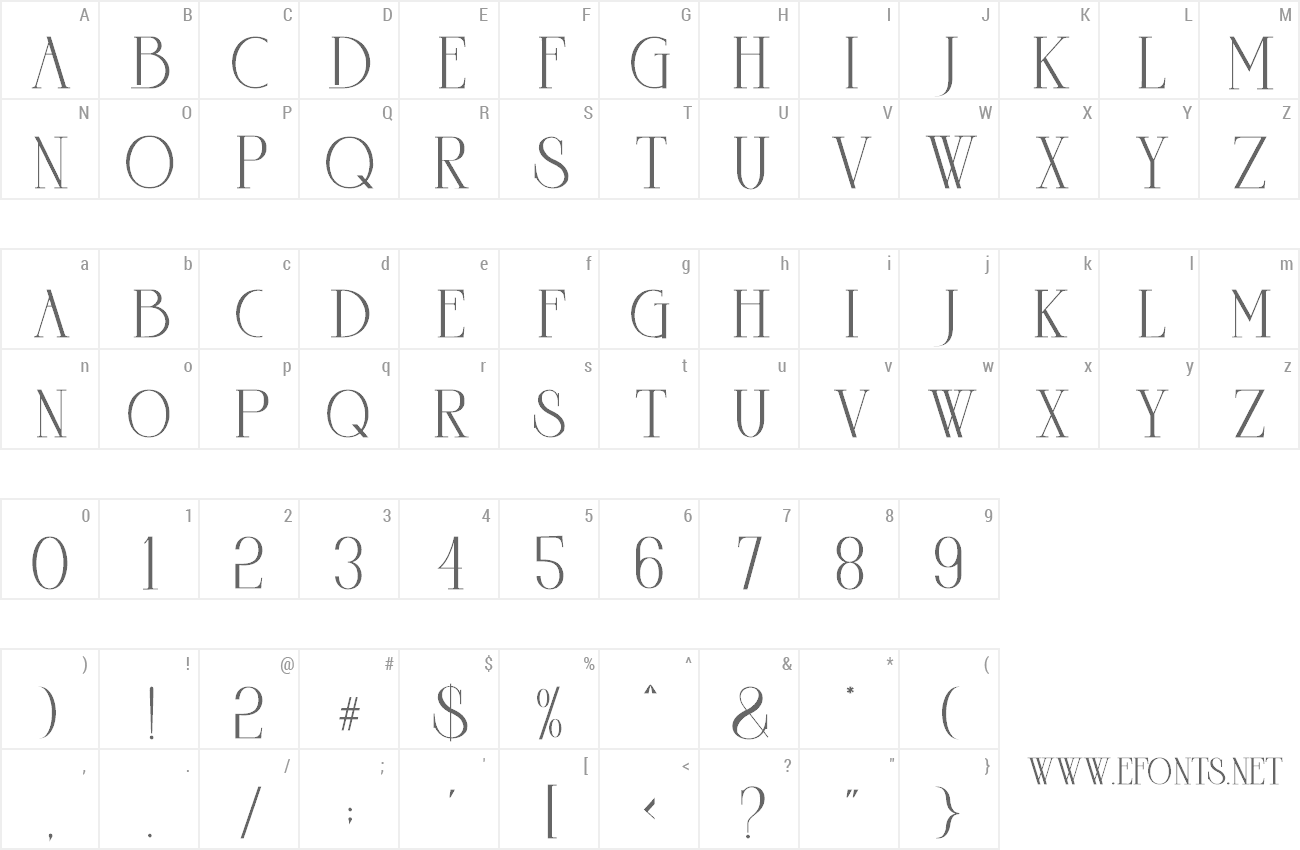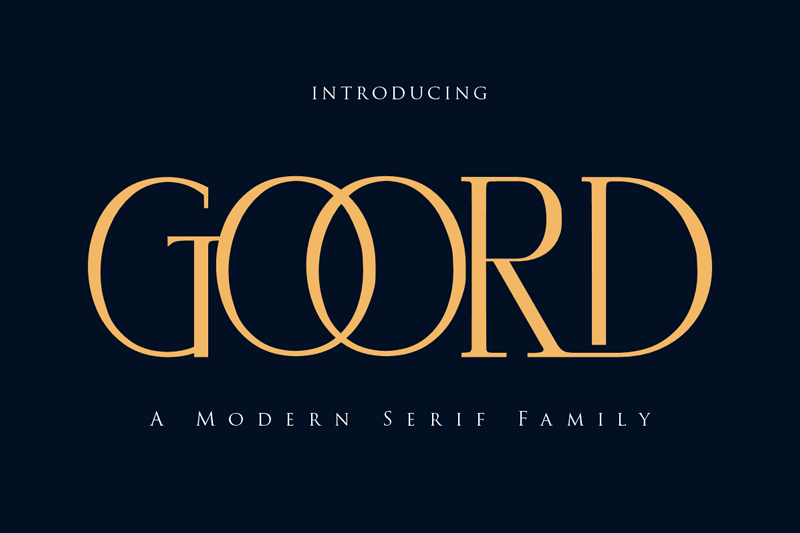
Preview and download Goord Font. Created by Gilar Studio in Basic Serif styles with Free for personal use license.
Introducing Goord - Modern Serif Family Goord is a classic style serif typeface that has been modernised with its unique curves and cut-ins making it one of the most memorable caps fonts on the market. Already matched up and ready to be used together for your next design! For those of you who are needing a touch of elegant, stylish, classy, chic and modernity for your designs, this font was created for you! Goord is perfect also Suitable for Logo, greeting cards, quotes, posters, branding, name card, stationary, design title, blog header, art quote, typography, art, modern envelope lettering or book design,craft design, any DIY project, book title, or any purpose to make your art/design project look pretty and trendy. The OpenType features can be very easily accessed by using OpenType-savvy programs such as Adobe Indesign, Adobe Illustrator CS, Adobe Photoshop CC, and Corel Draw (You can also access most most of these features in Microsoft Word and other similar programs, but you'll need to get comfortable with the advanced tab of Word's font menu. If you need help with this, ask me!) If you need to access all glyphs with a character map, you will need to contact me after purchase for a special file. Files included: -Goord regular (Otf,Ttf,Woff) -Goord italic (Otf,Ttf,Woff) -Goord Bold (Otf,Ttf,Woff) -Goord Bold Italic (Otf,Ttf,Woff) Features: -4 Style Font Family -All caps -Stylistic Alternates & Ligatures -Numerals & Punctuation -Format File: TTF,OTF, Web -Accents/Multilingual characters See Full Version Here : https://www.creativefabrica.com/product/goord/ref/236330 More... |